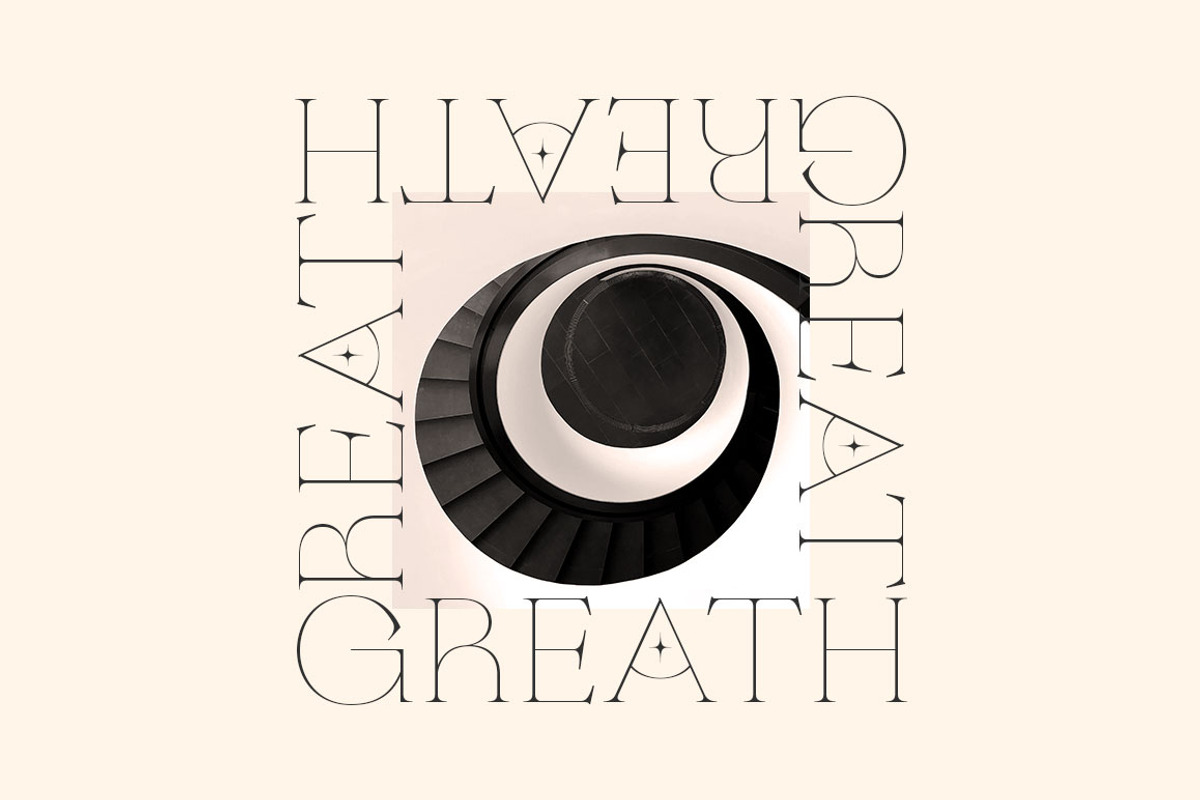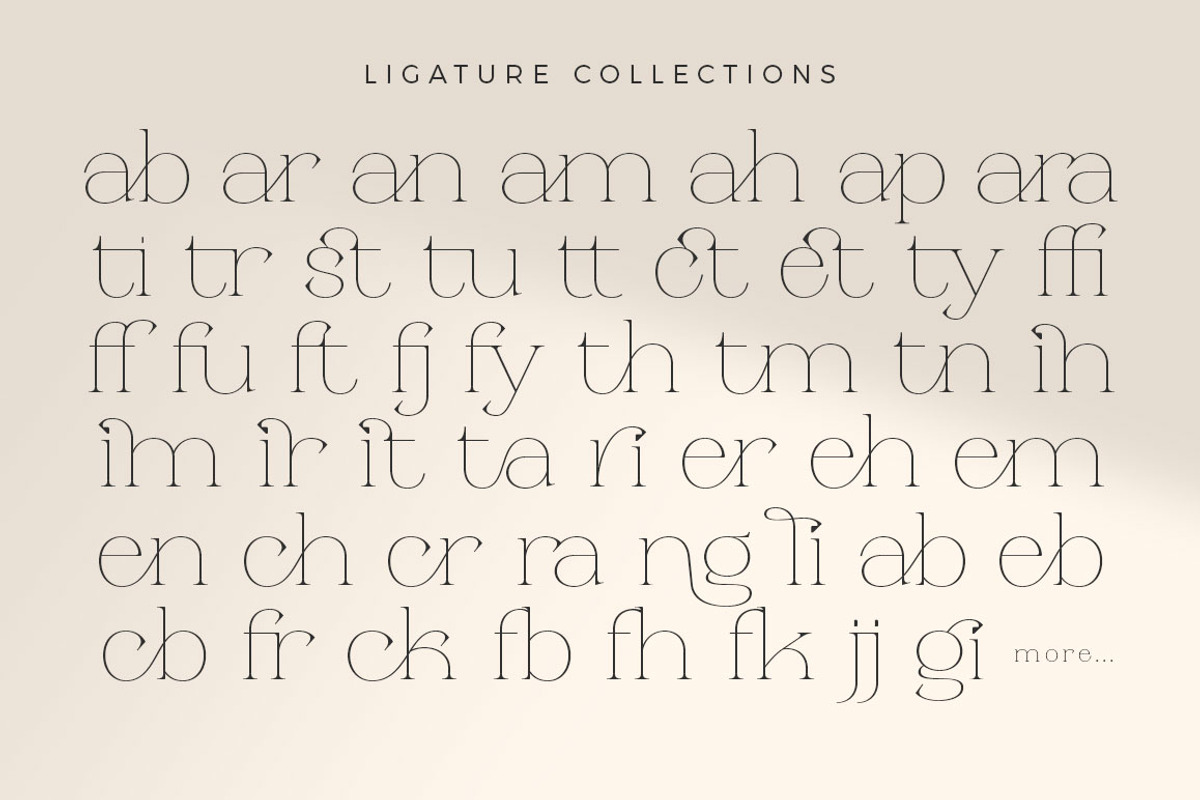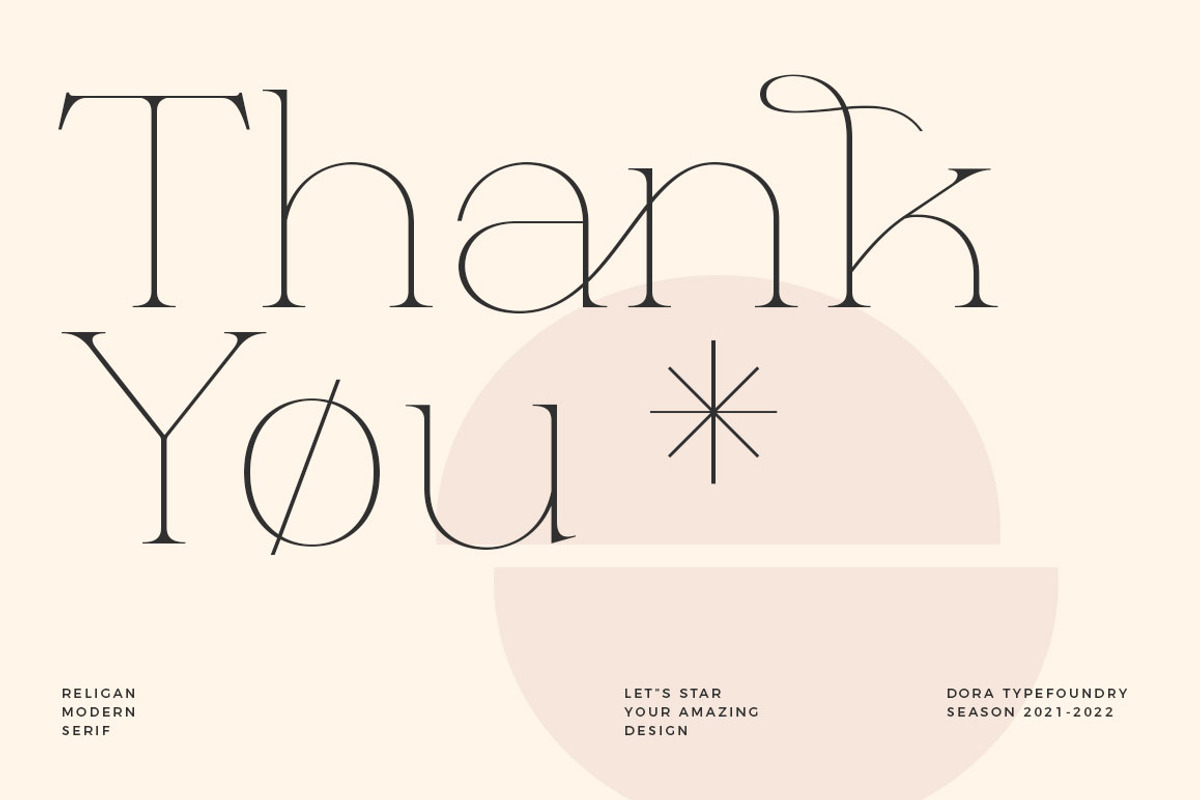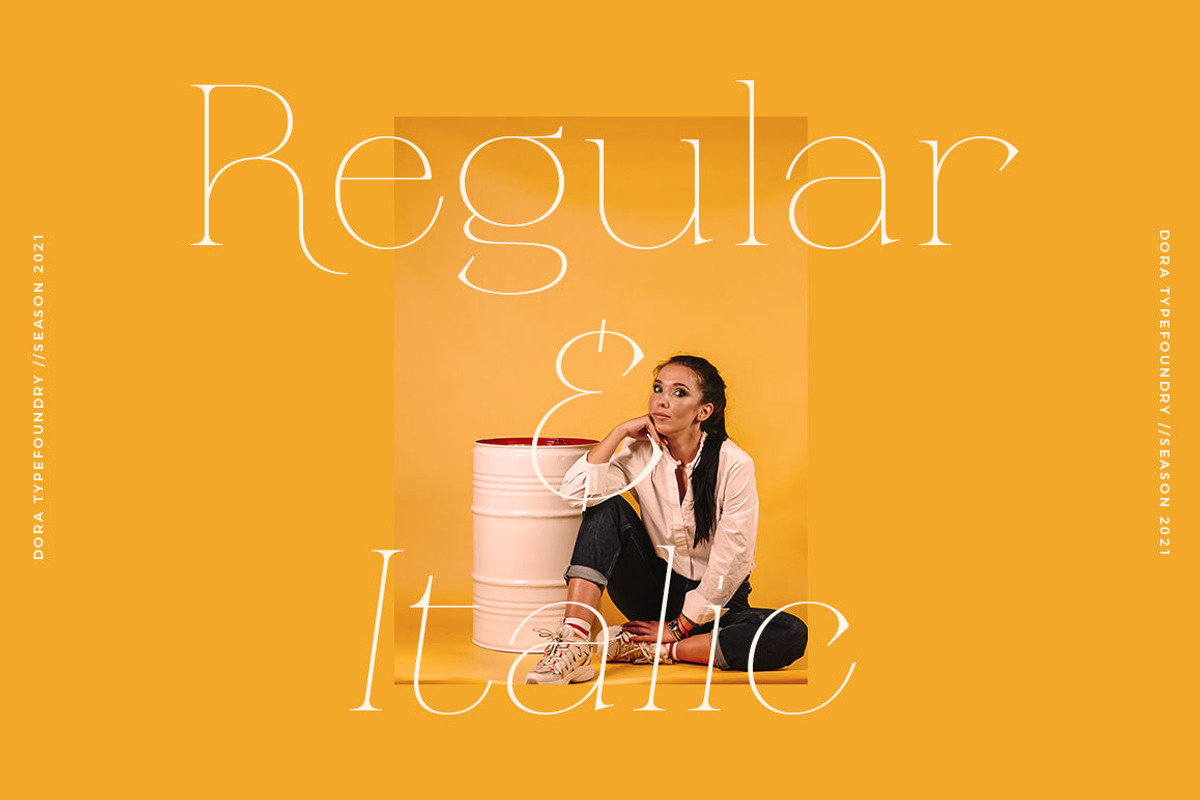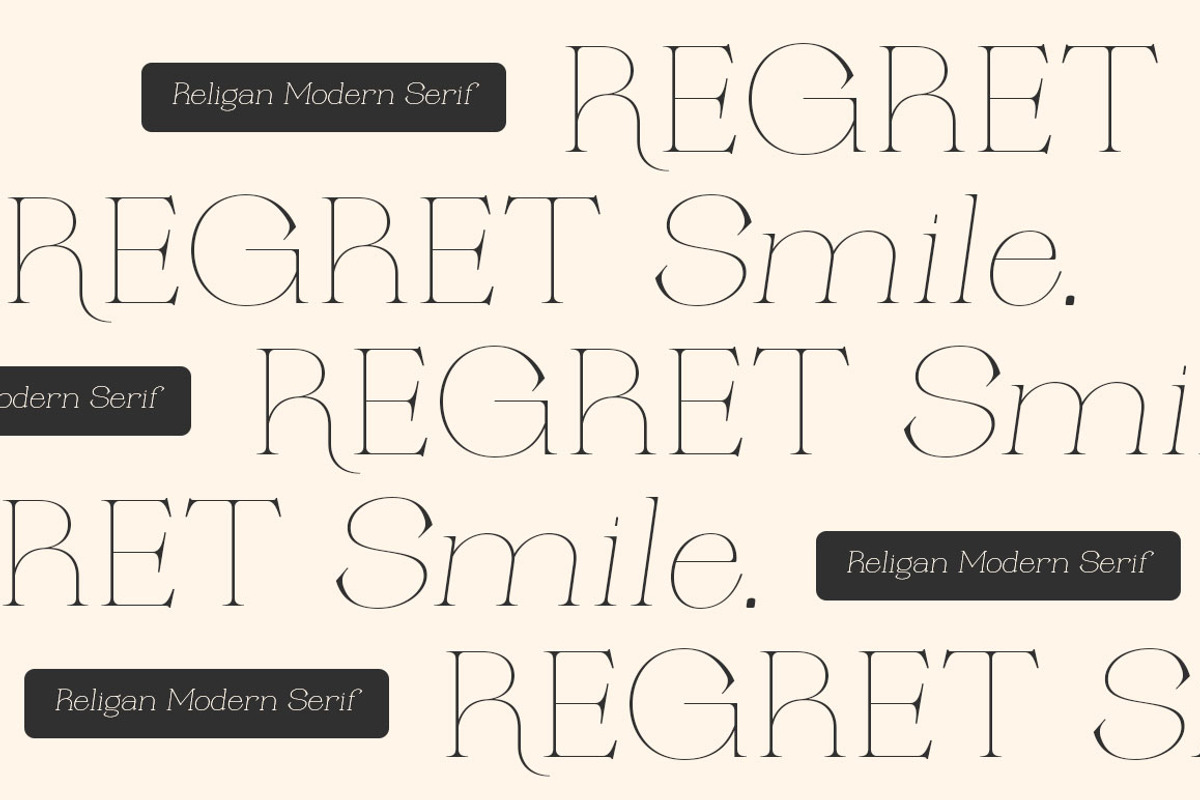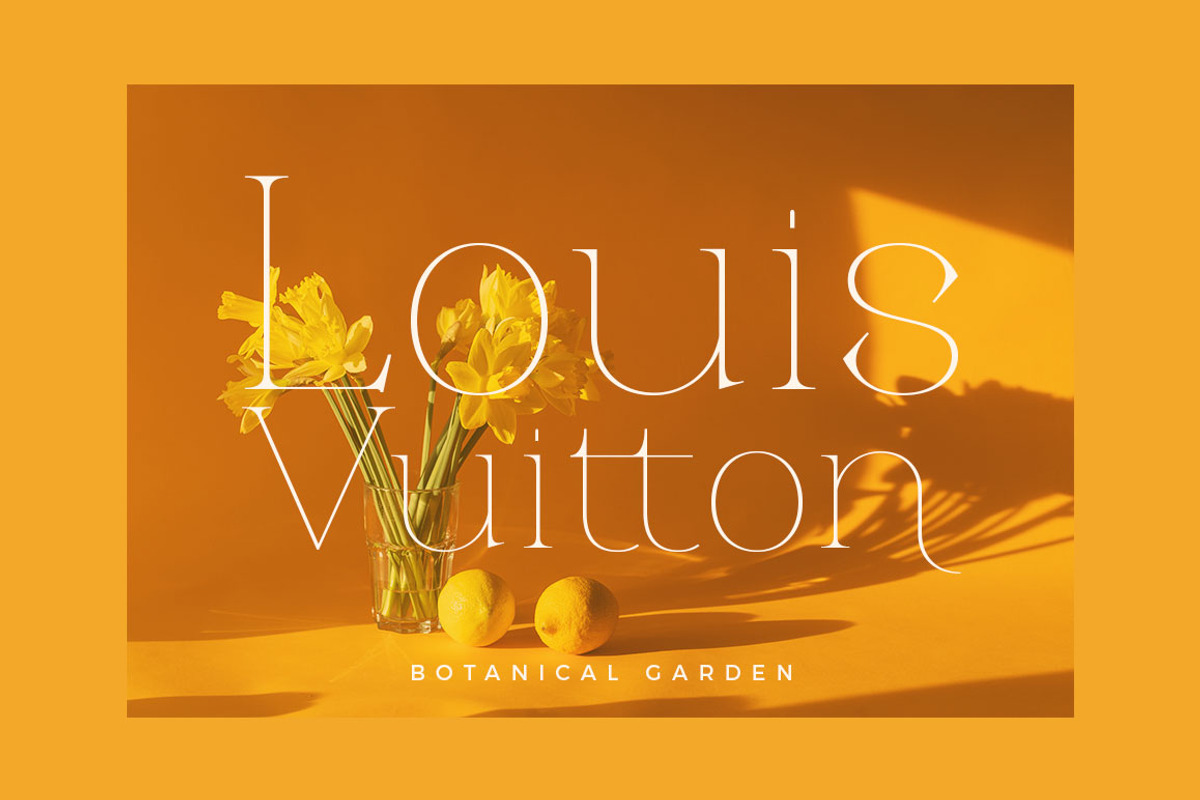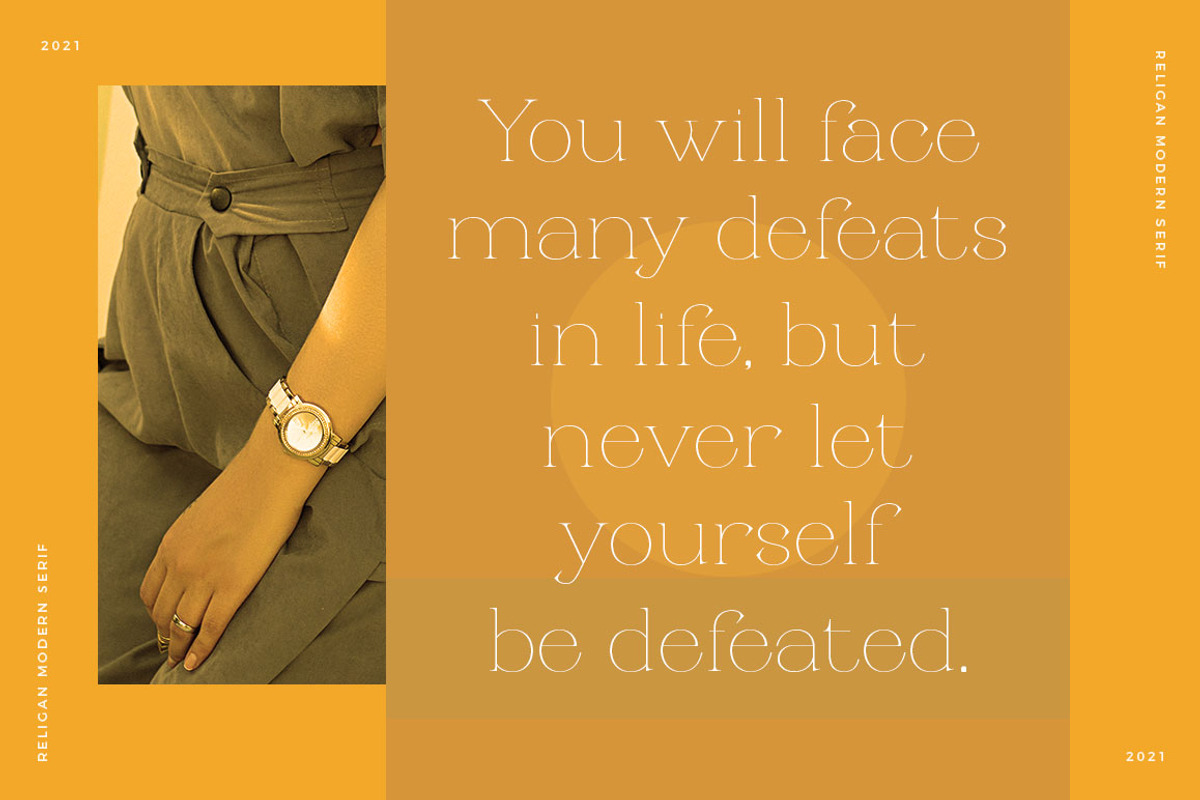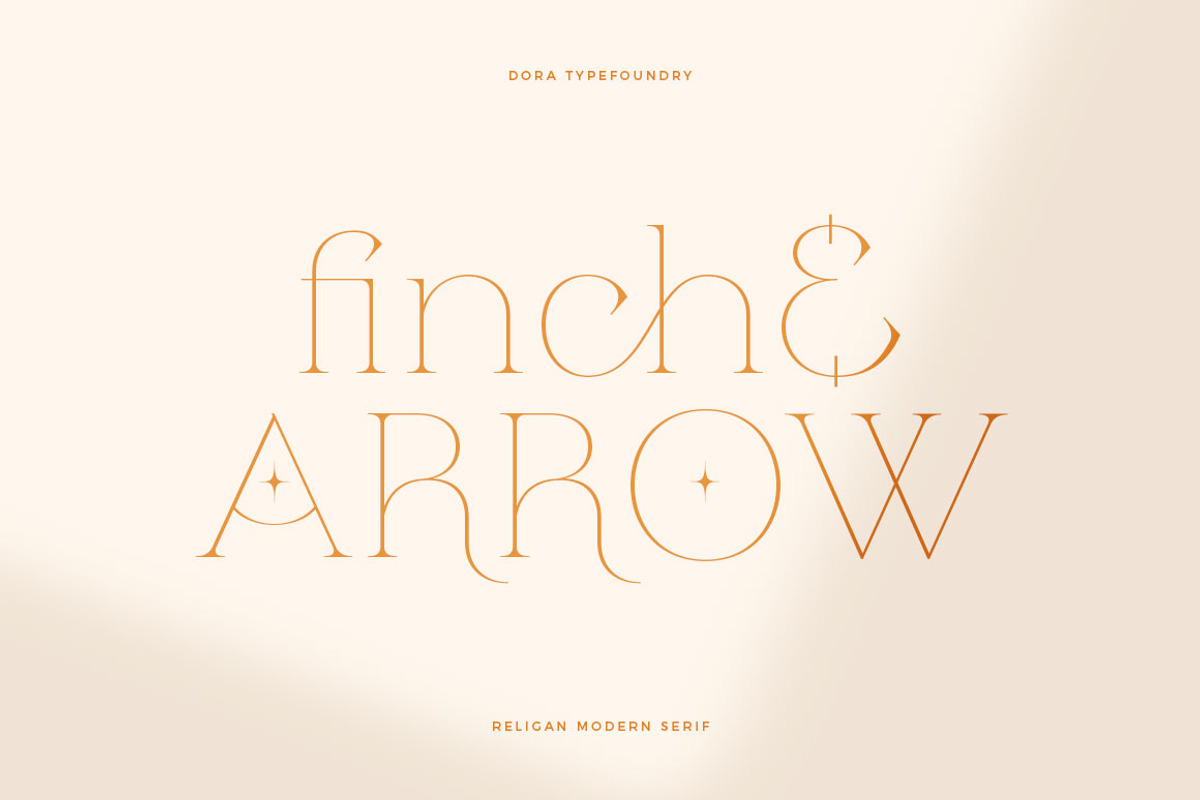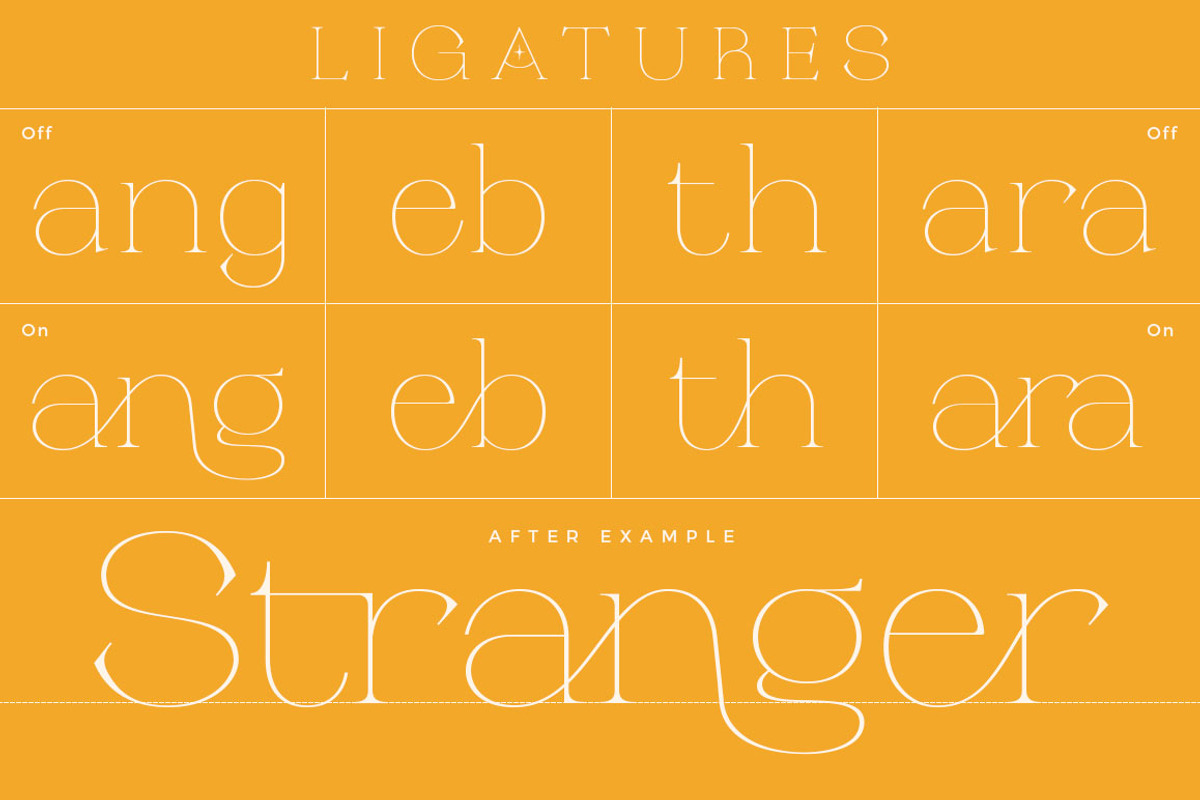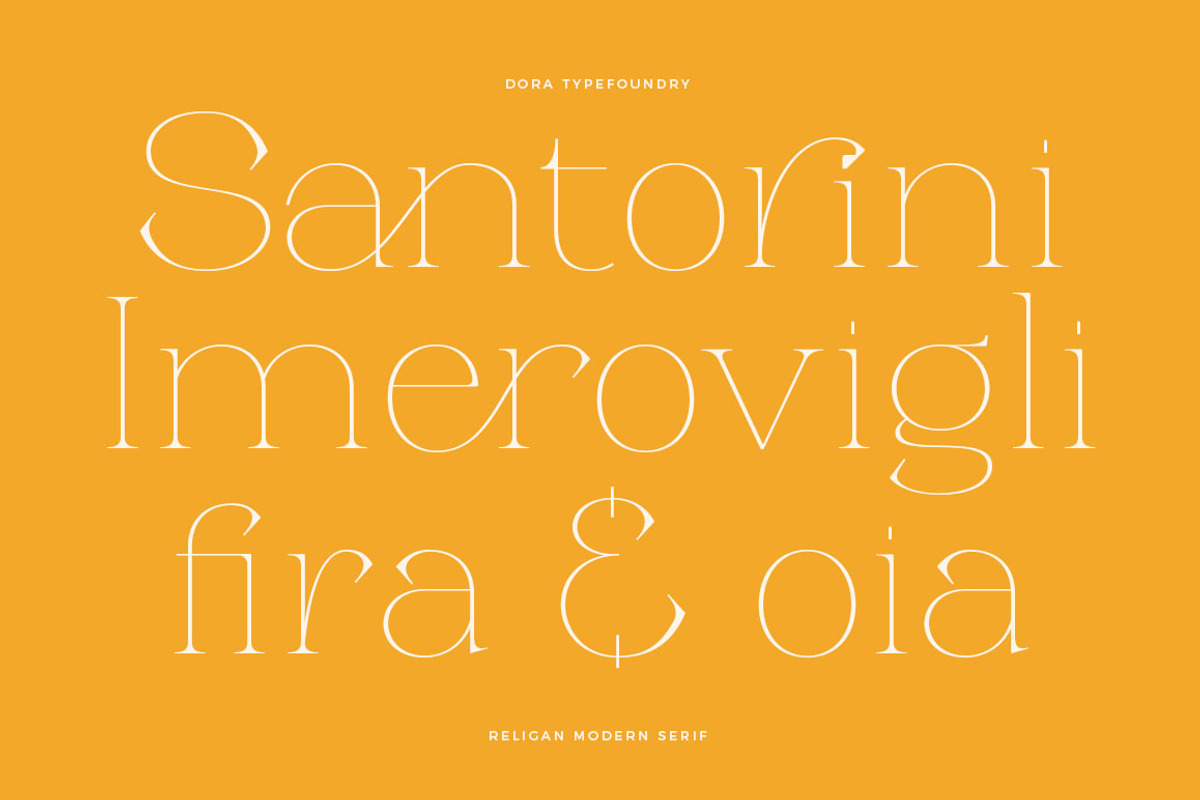
Religan - Modern Serif Font
The new Religan serif font is luxurious and elegant which will bring a unique style and trendy look to your designs.
This modern serif relogan has several on-trend ligature binders and special characters to make it look more unique in all design projects and work perfectly to pair with other fonts. It's perfect for logotypes, branding, wedding monograms and invitations, blog headlines and more.
Here we prepare some fasteners:
- ab ar an am ah ara ap ti tr st tu tt ct et ff ty ffi fu ft fj fy th tm tn
- in im ir it ta ri er eh em en ch cr ra ng li eb cb fr ck fb fh fk jj gi and more..
Religan also includes the full set:
- Multilingual symbol